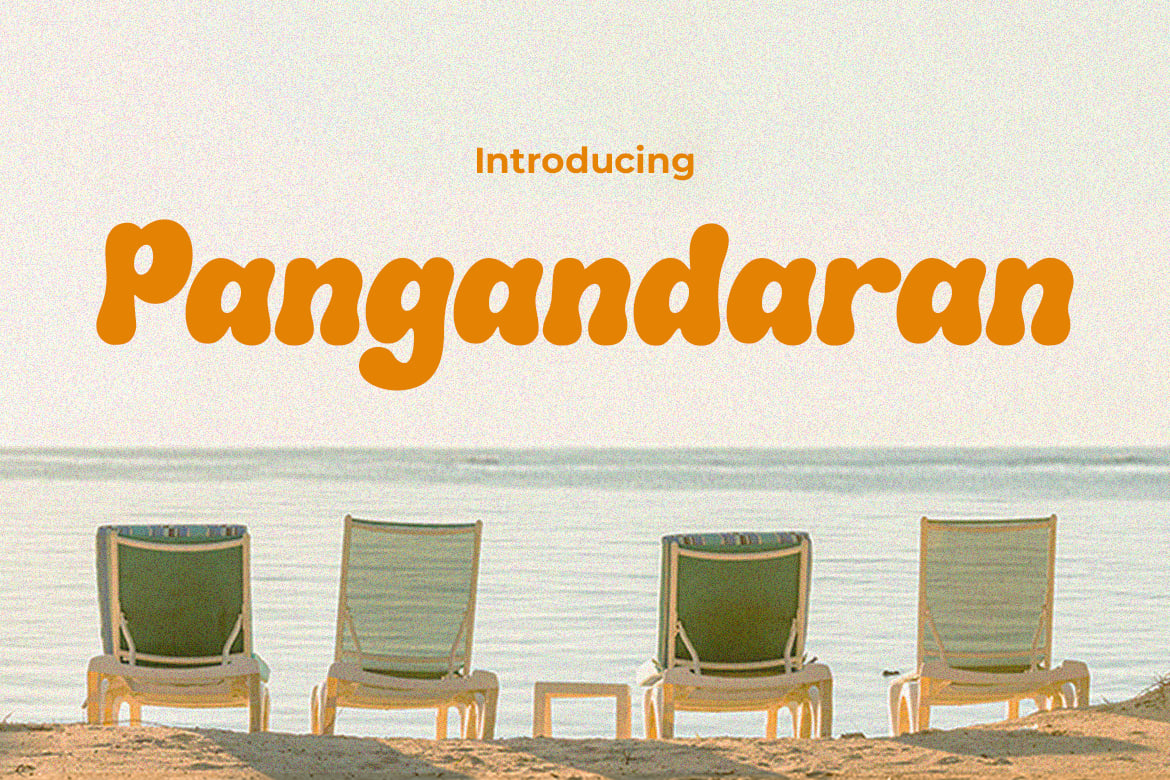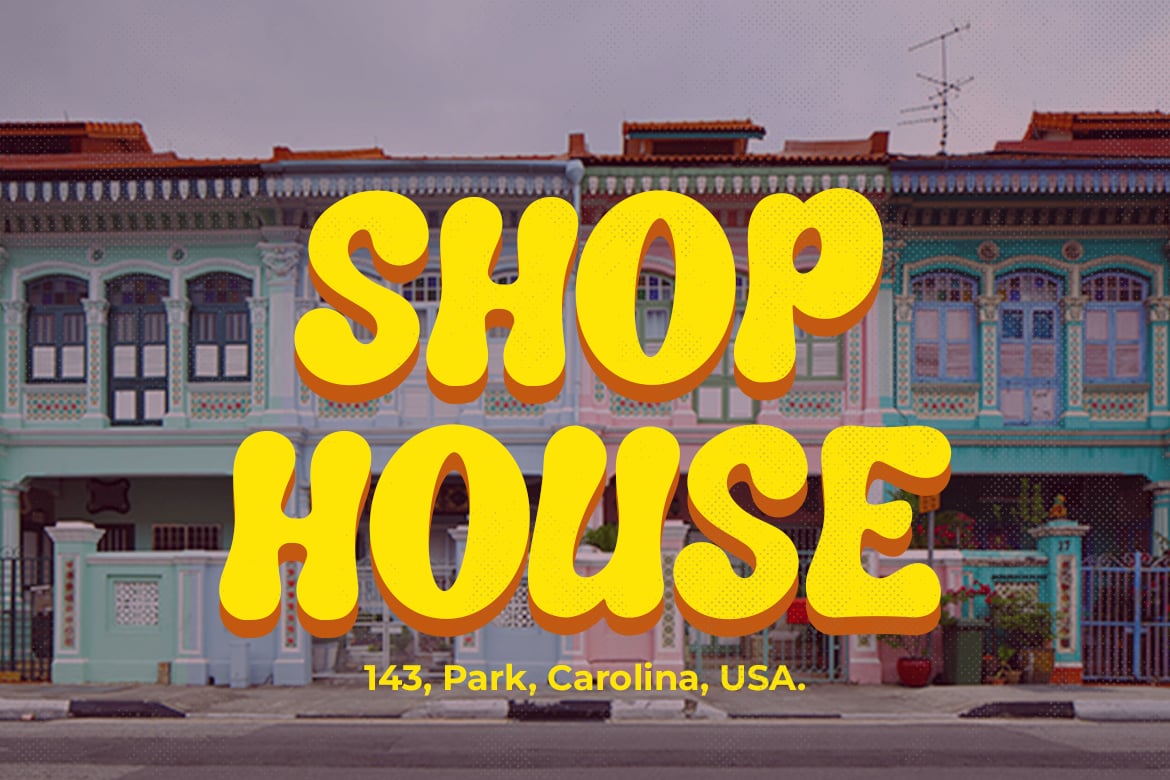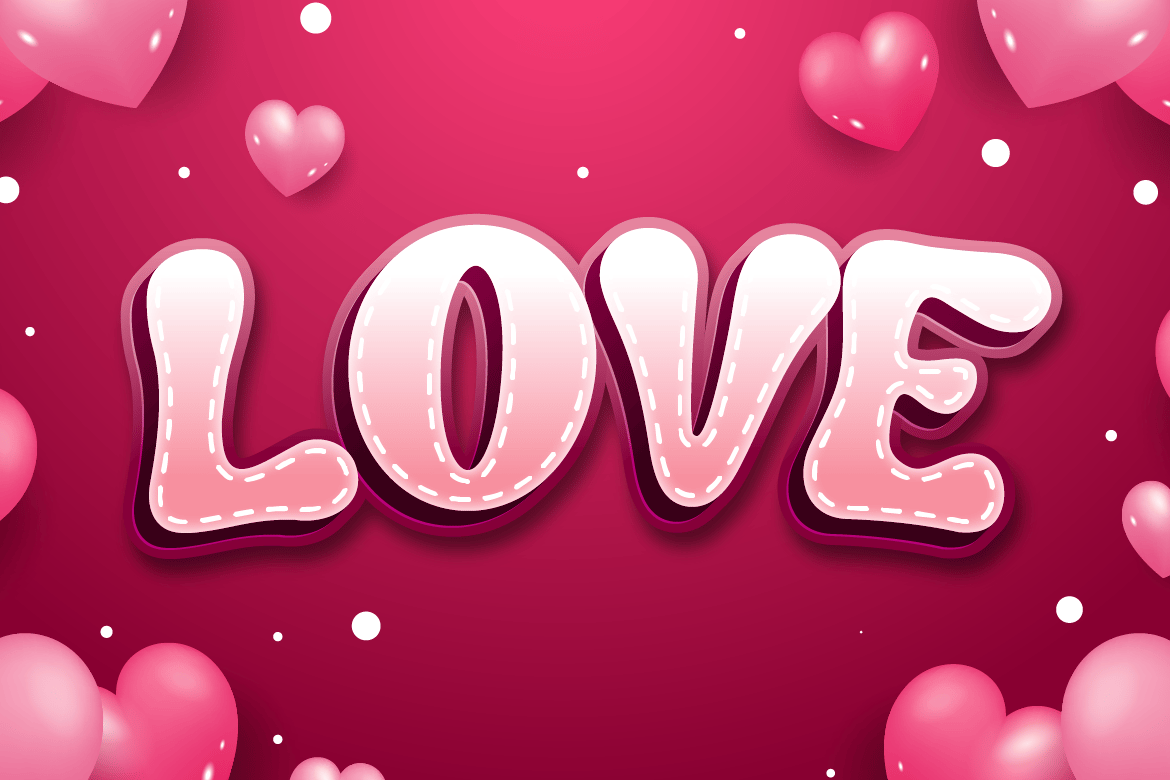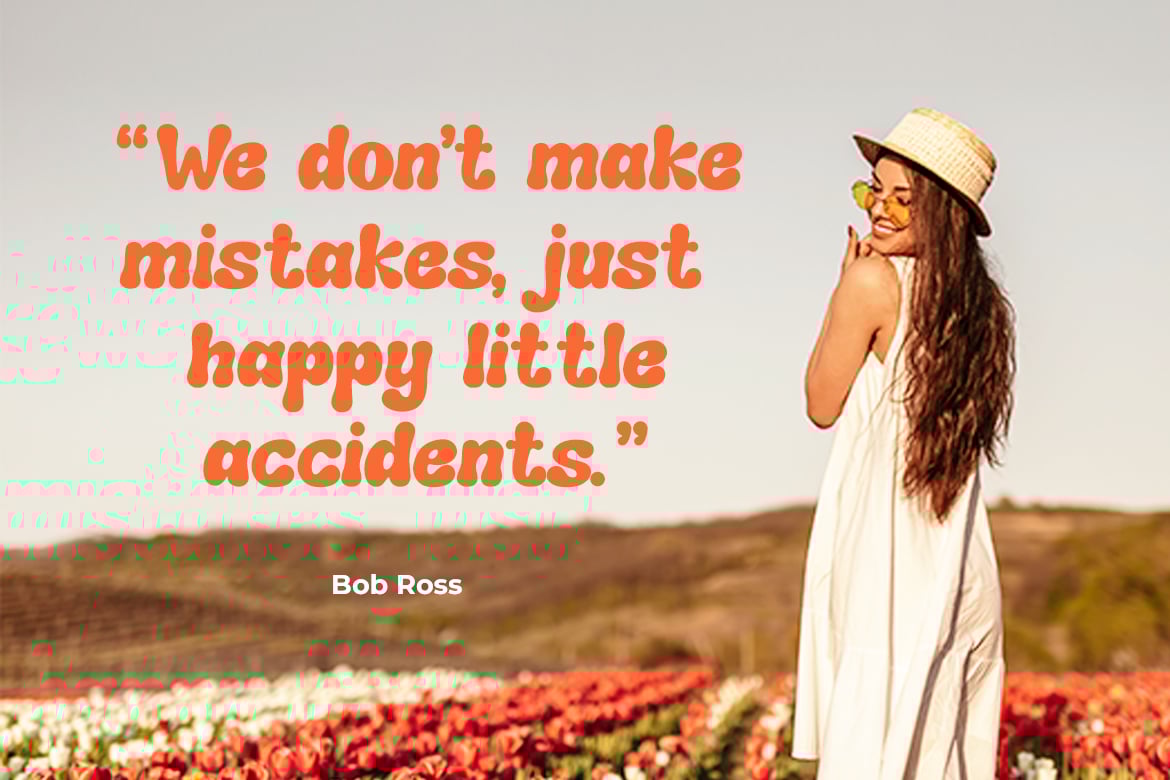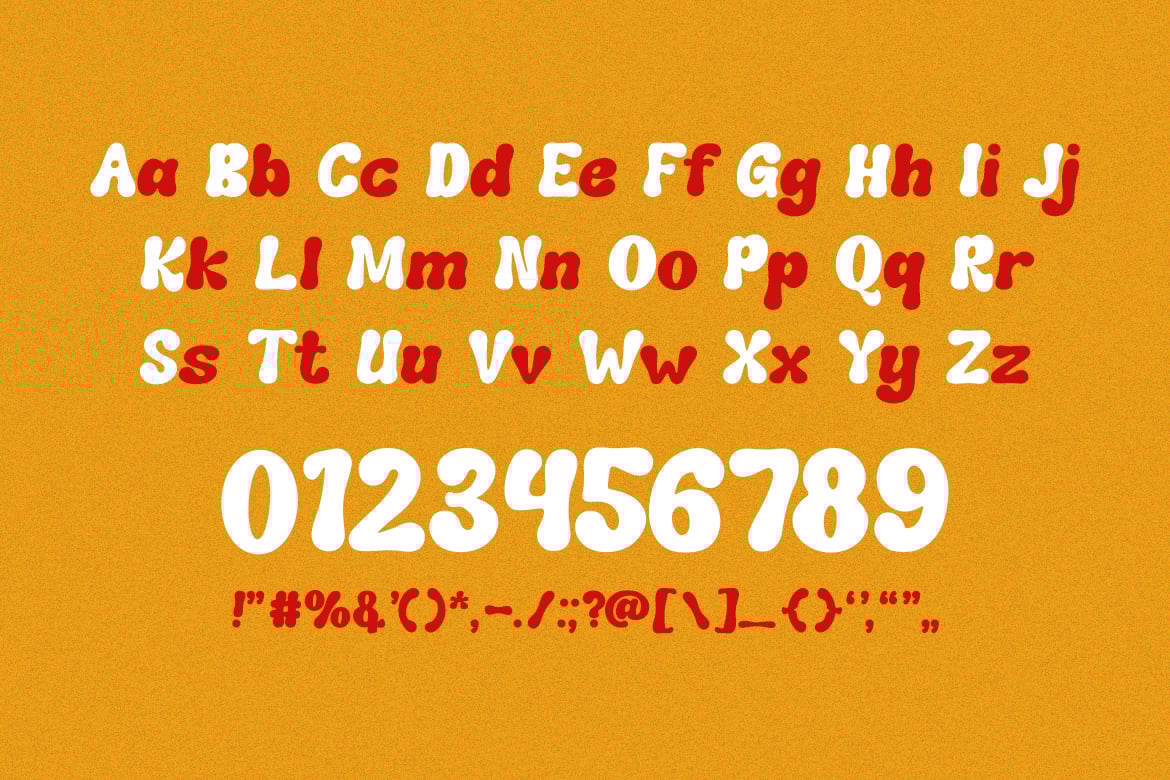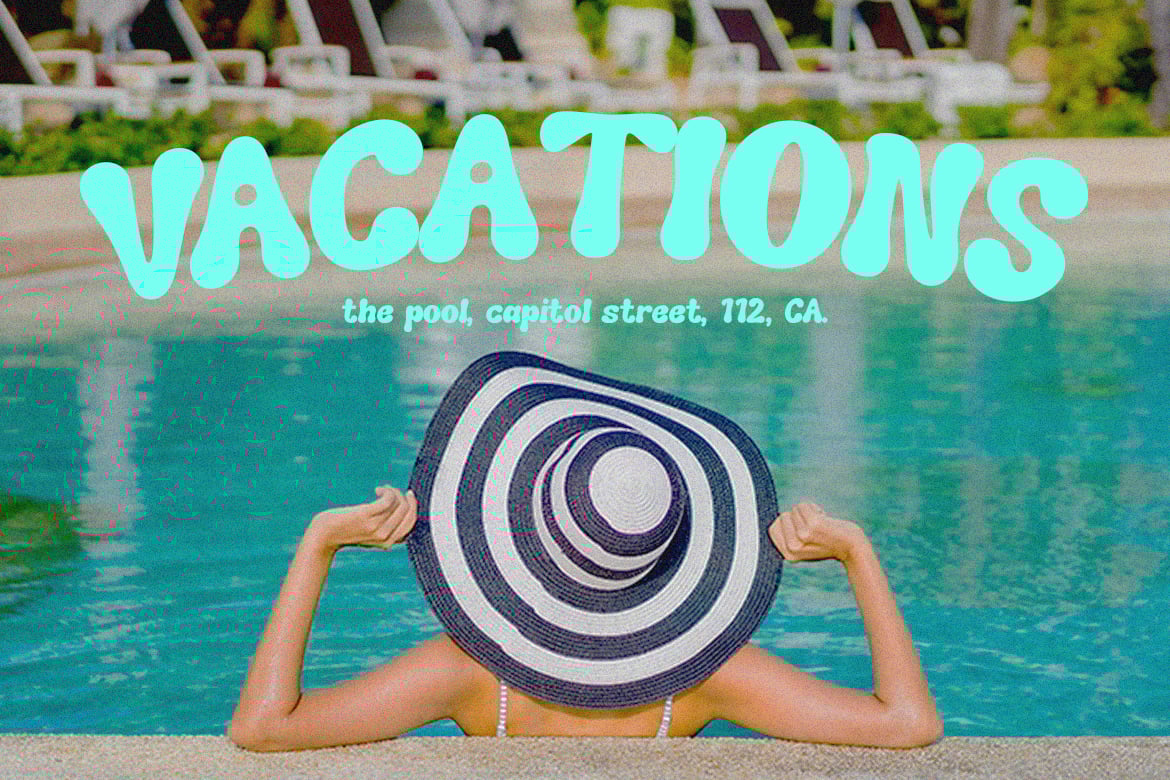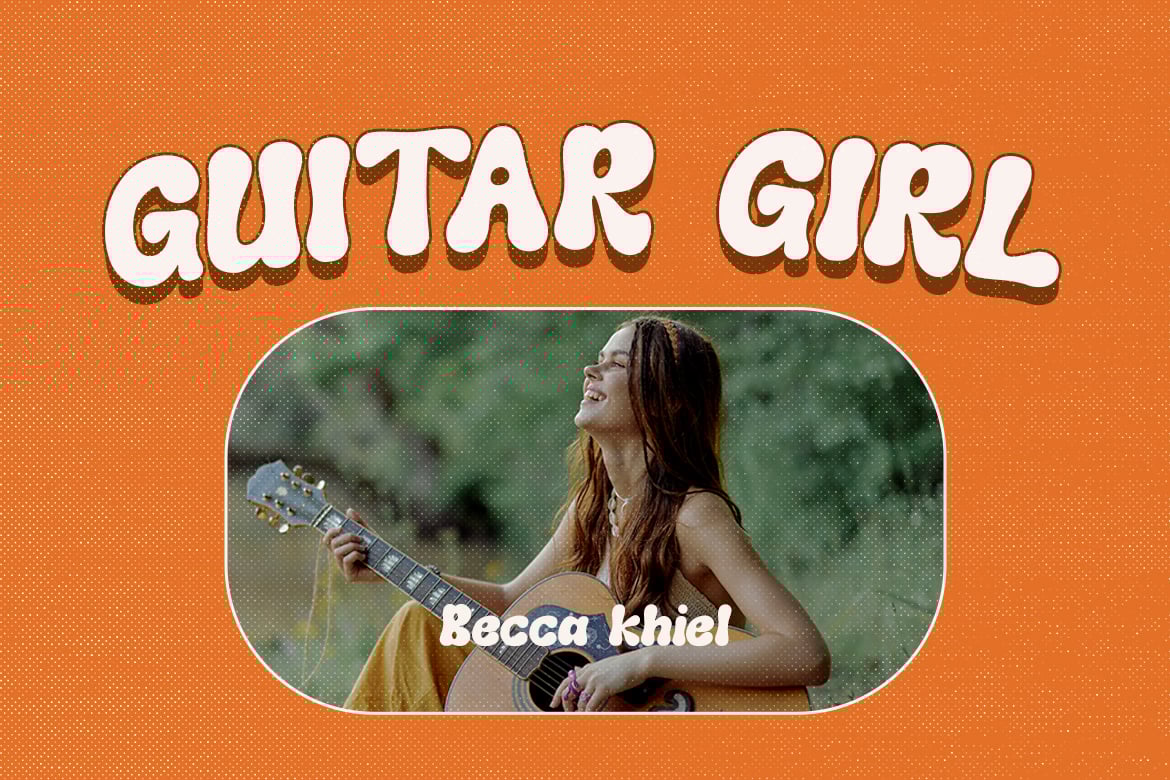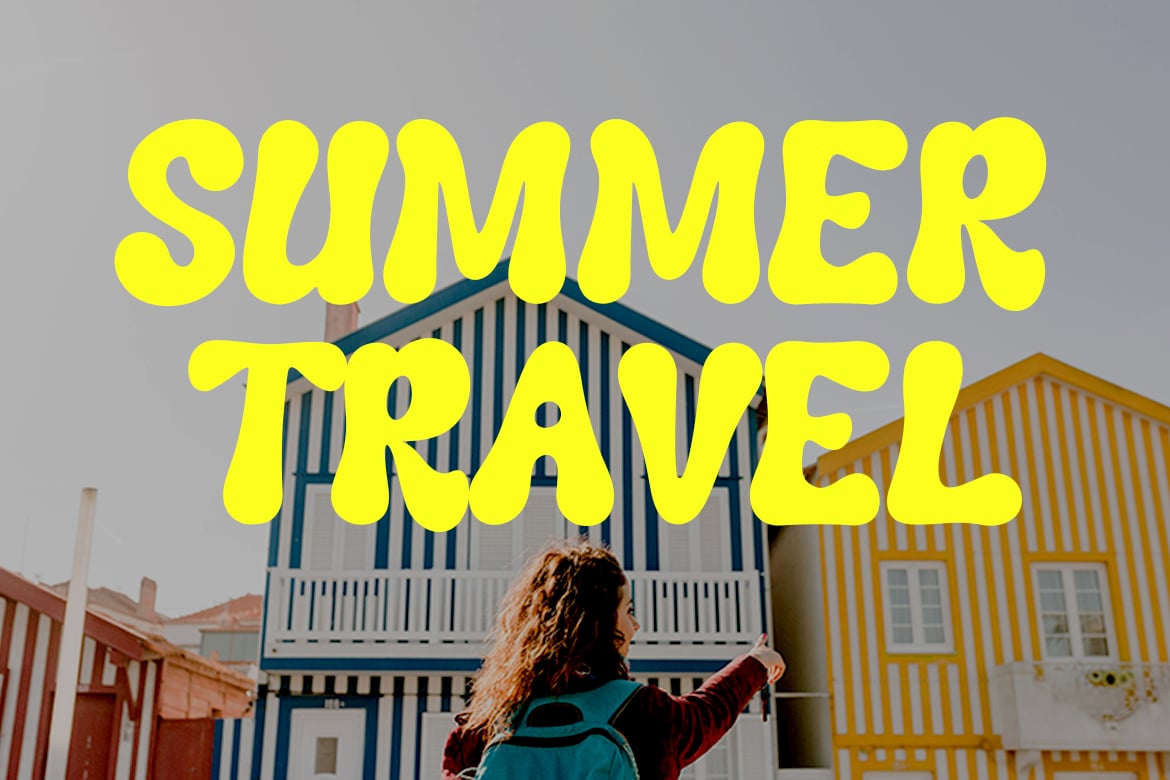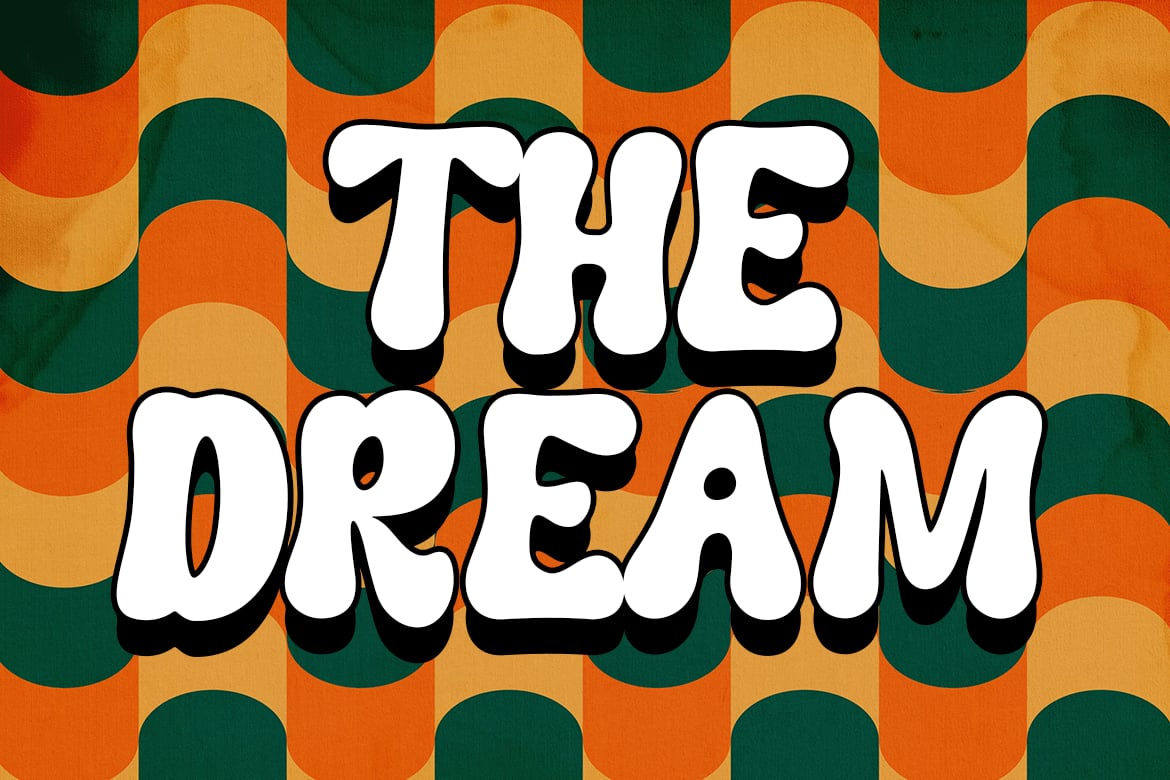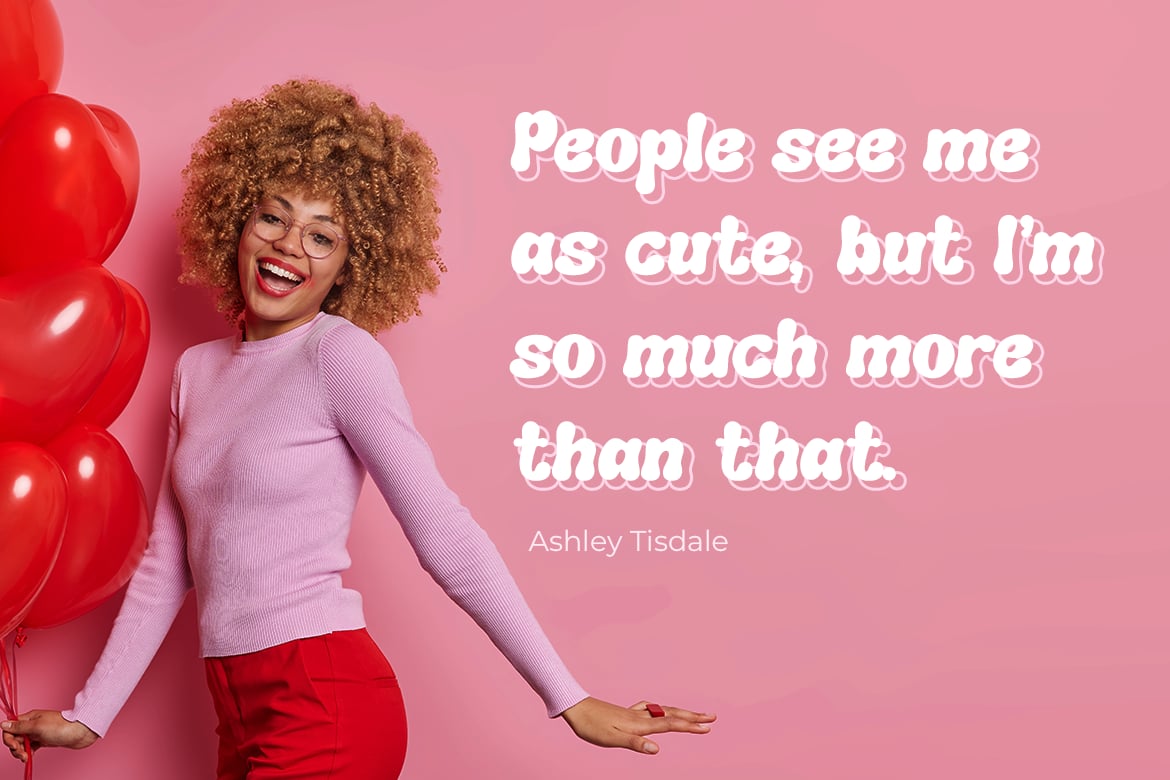
Pangandaran – Retro Groovy Font
Pangandaran is an exceptional font that resonates with the vibrant spirit of retro style, imbued with classic and vintage elements, and finished with a groovy twist. This font captures the essence of an era that celebrated bold expressions and unique aesthetics, making it perfect for a wide array of creative endeavors. For logos, Pangandaran brings a distinctive flair, infusing brands with a memorable and timeless style. Its classic vintage appeal is ideal for crafting quotes that need a touch of nostalgia, making each word resonate with the charm of bygone days. In invitations, this font sets an engaging and retro-themed tone, perfect for events that aim to stand out. When used in posters and greetings, Pangandaran conveys messages with an energetic and lively vibe, instantly capturing attention with its unique groovy style.
In the realms of packaging and branding, this font offers a unique identity, combining the allure of retro with the sophistication of classic design, ensuring products and brands shine with their own distinctive character. For book covers, event promotions, headlines, and advertising, Pangandaran ensures your message is not only seen but also felt, bringing a sense of fun and nostalgia to every word.